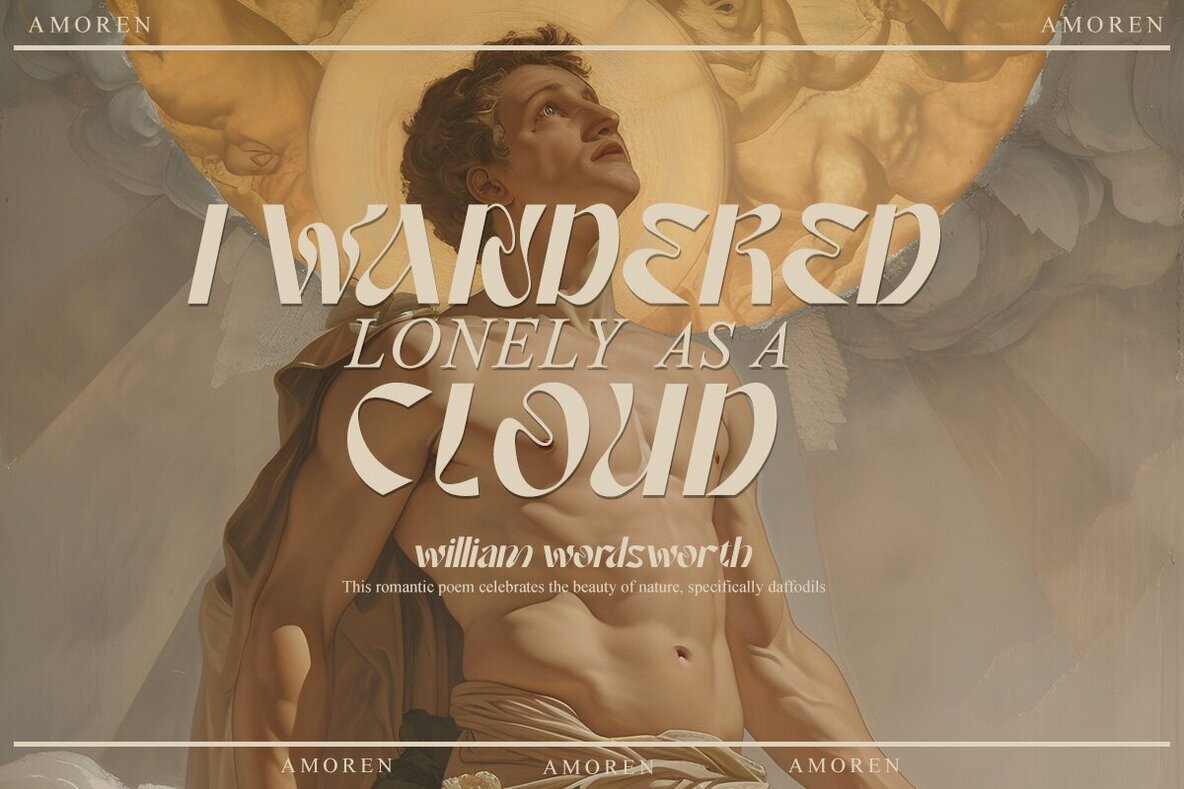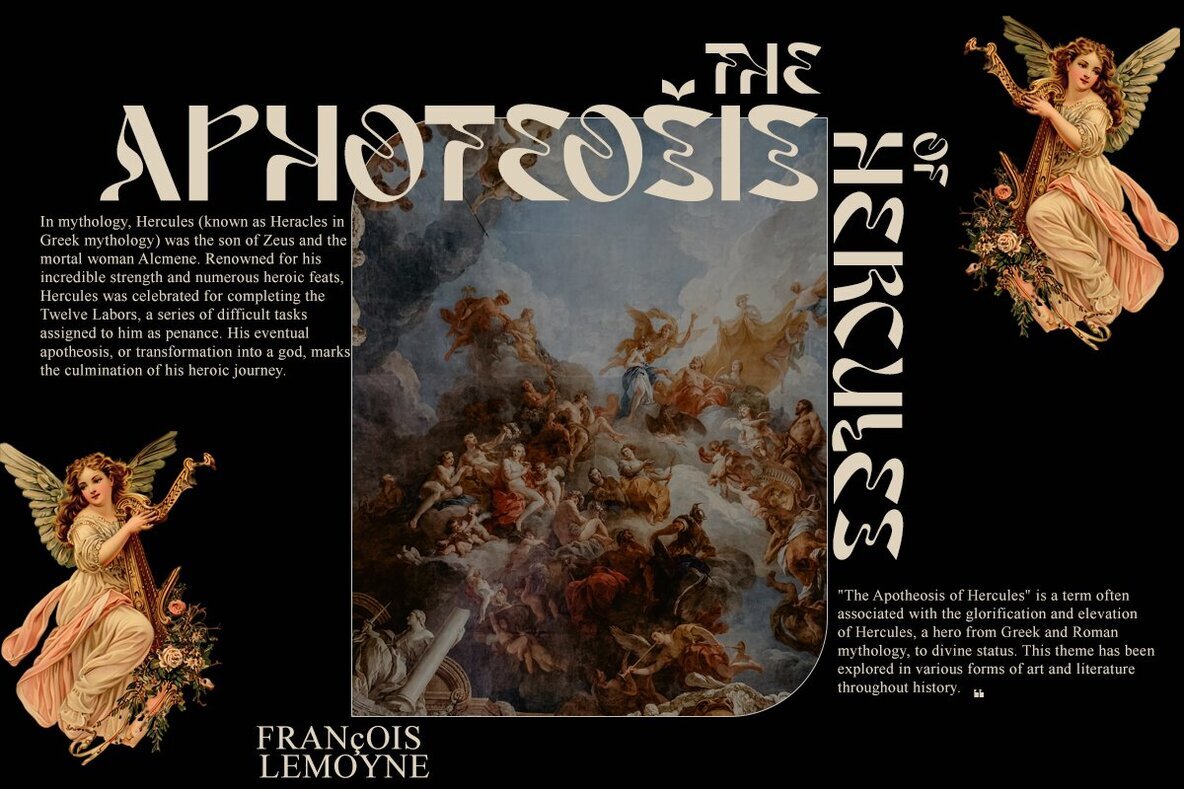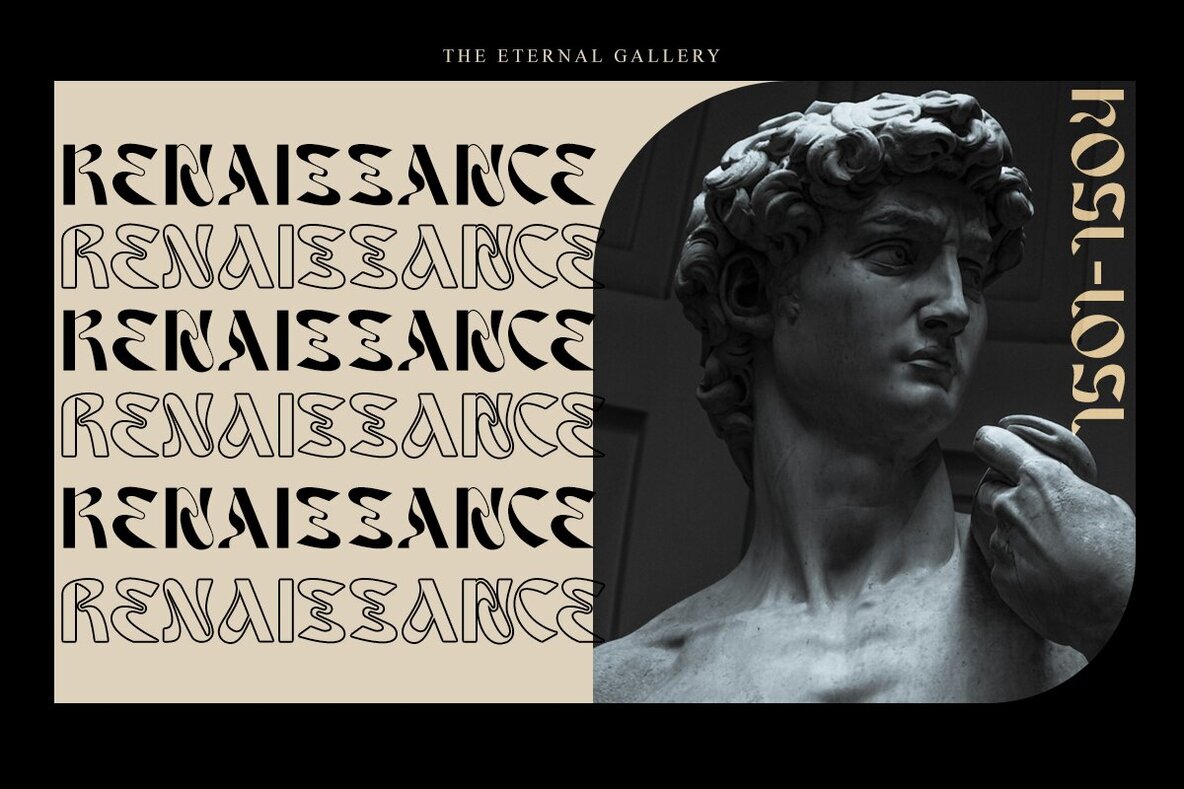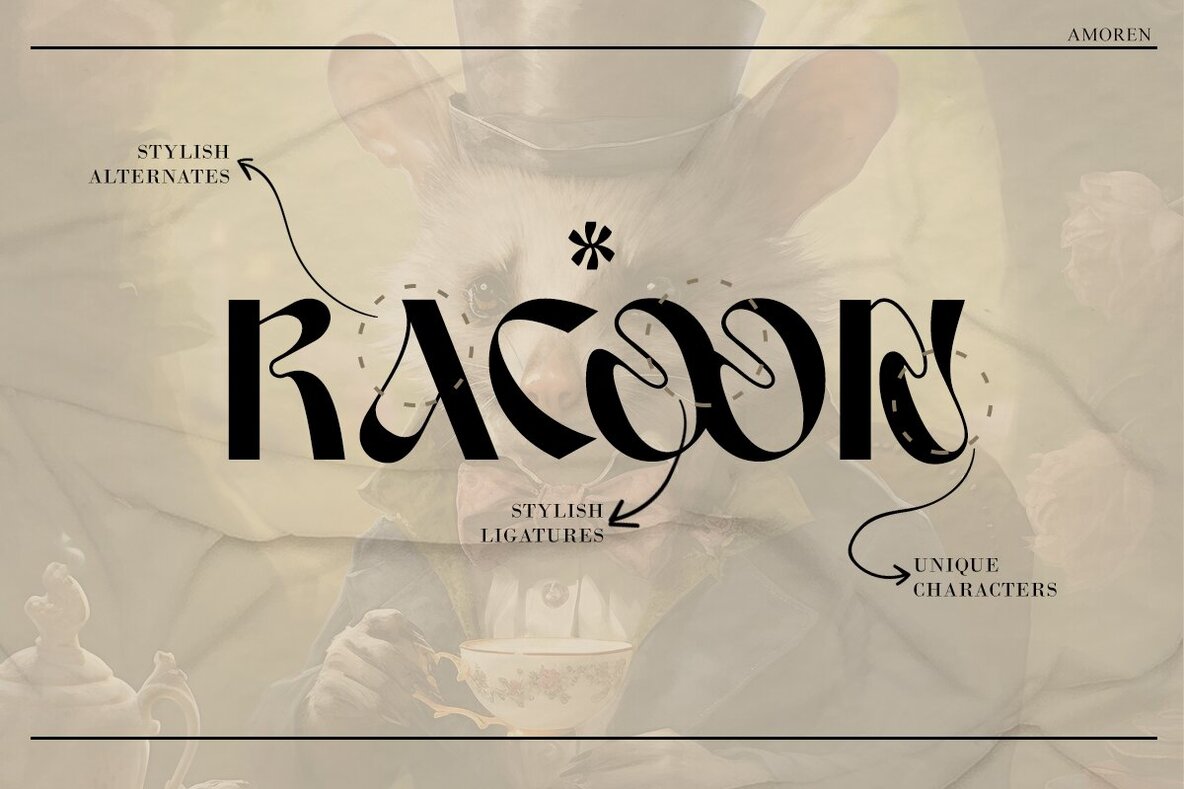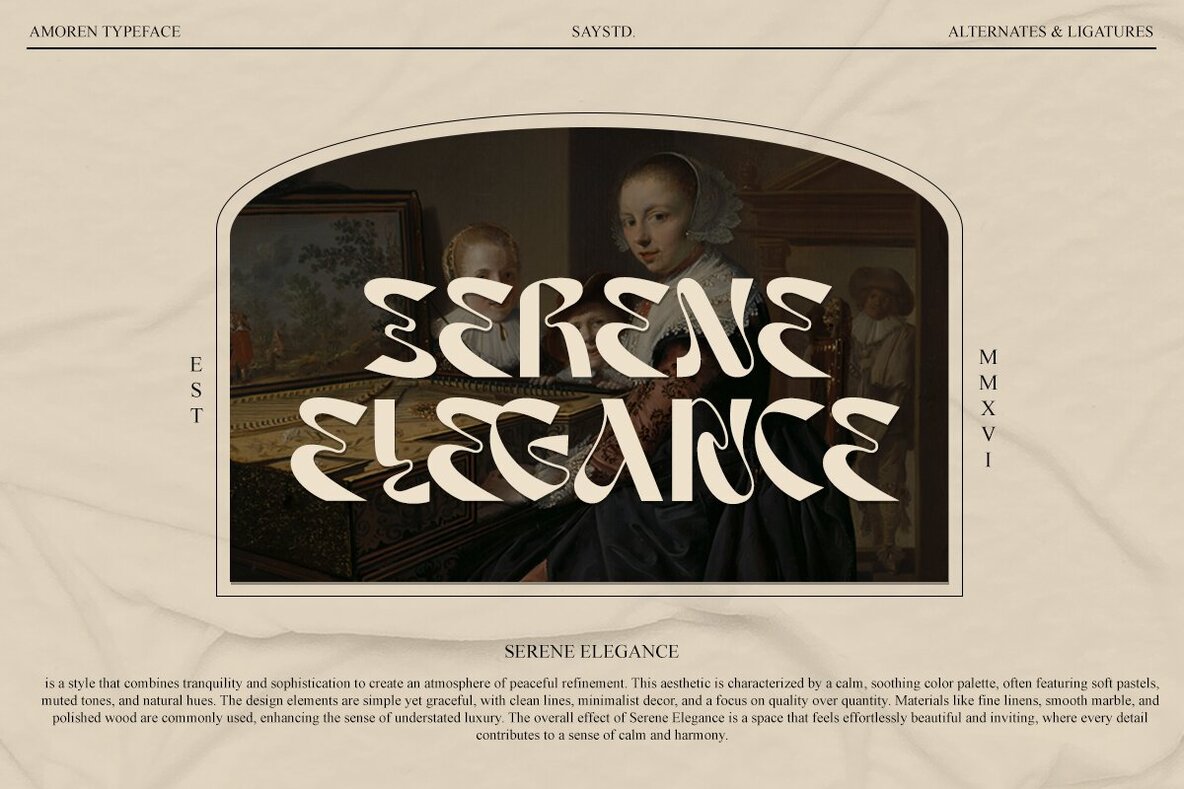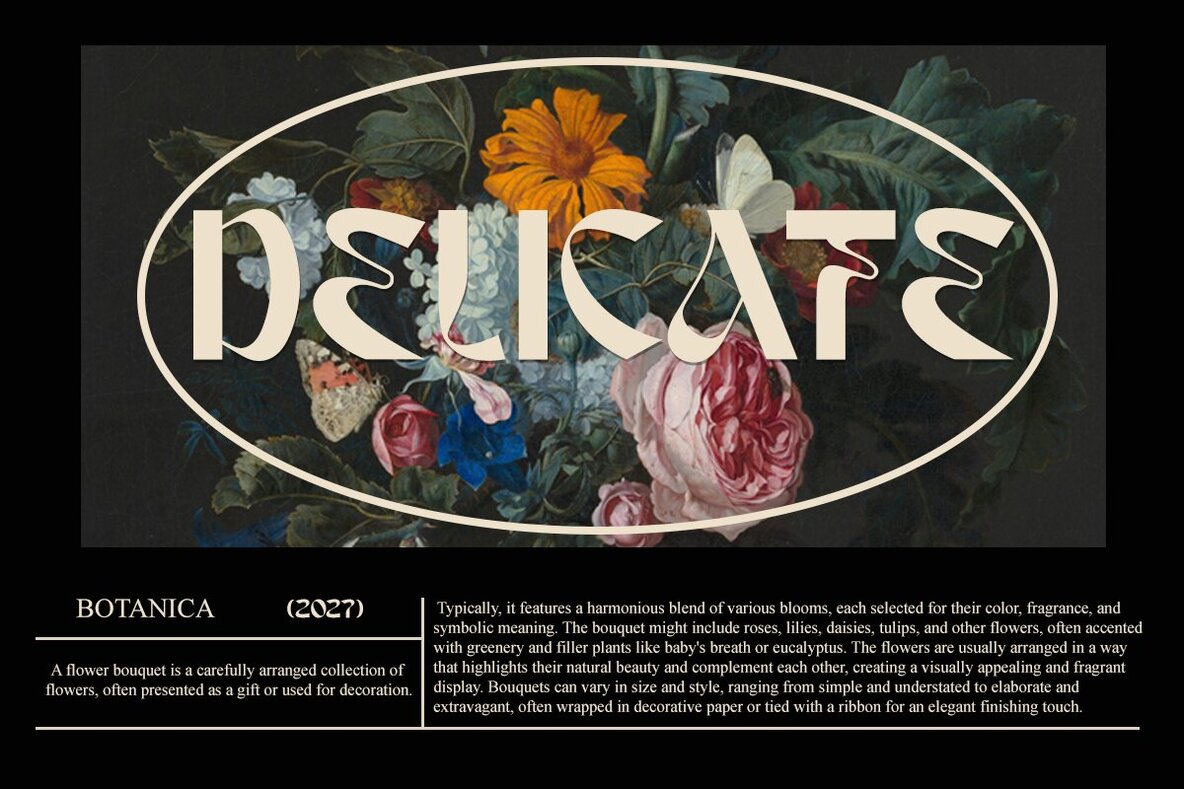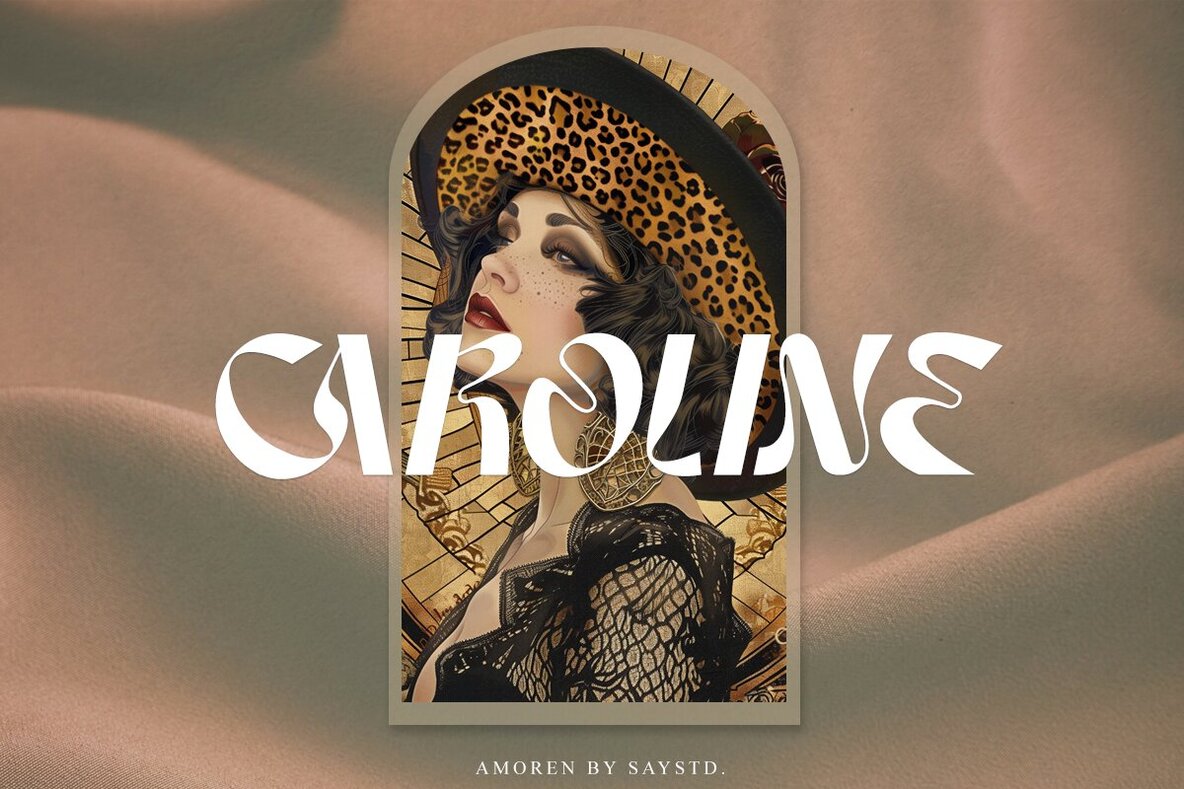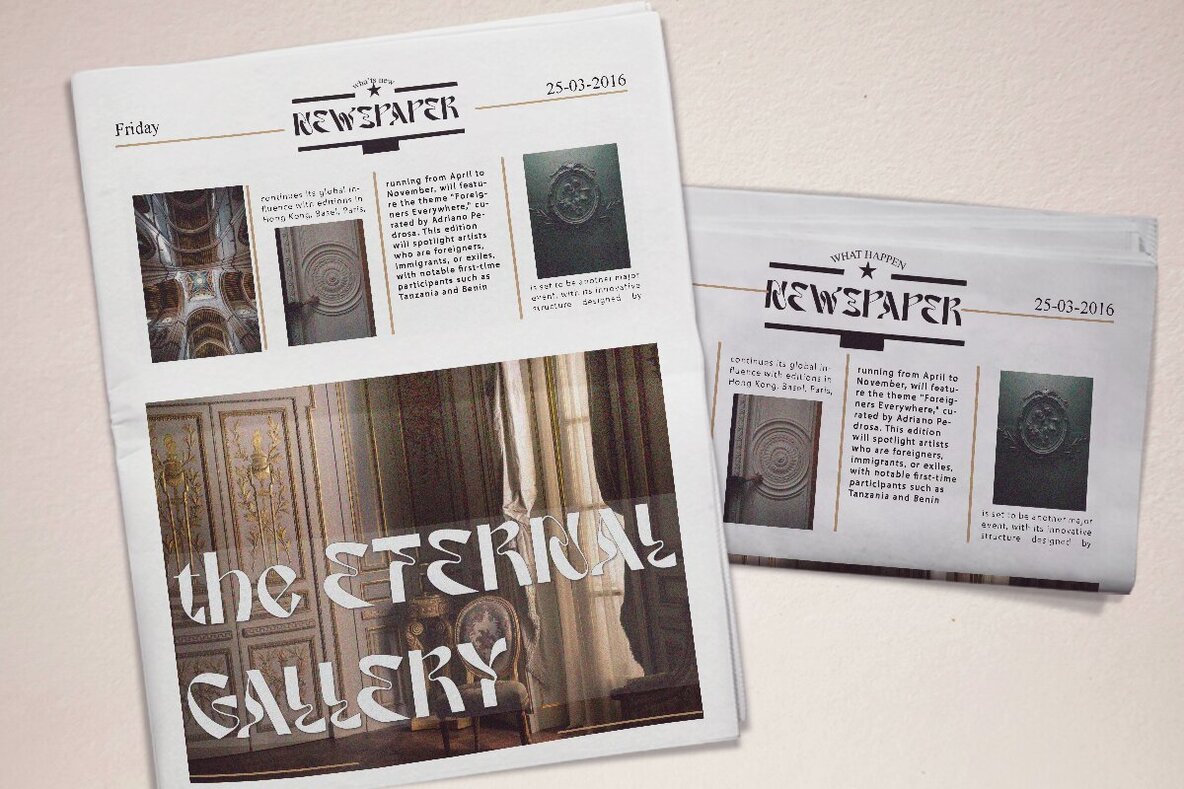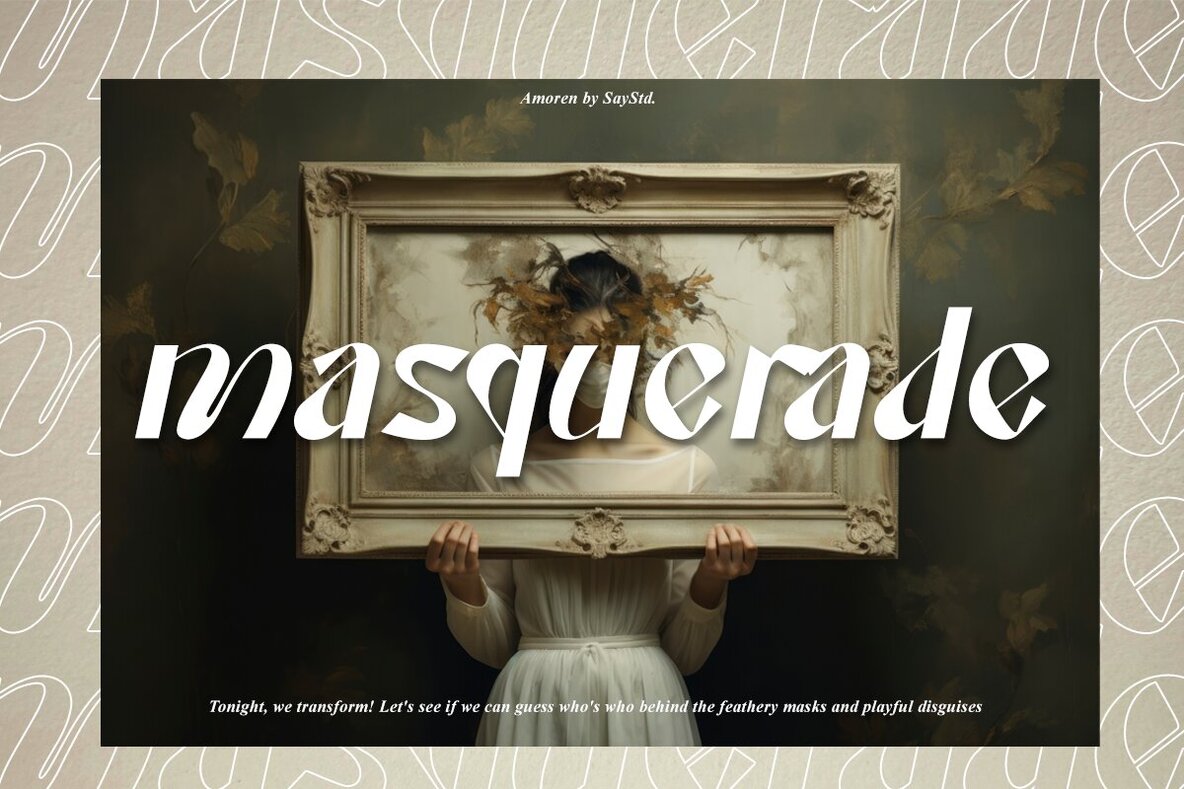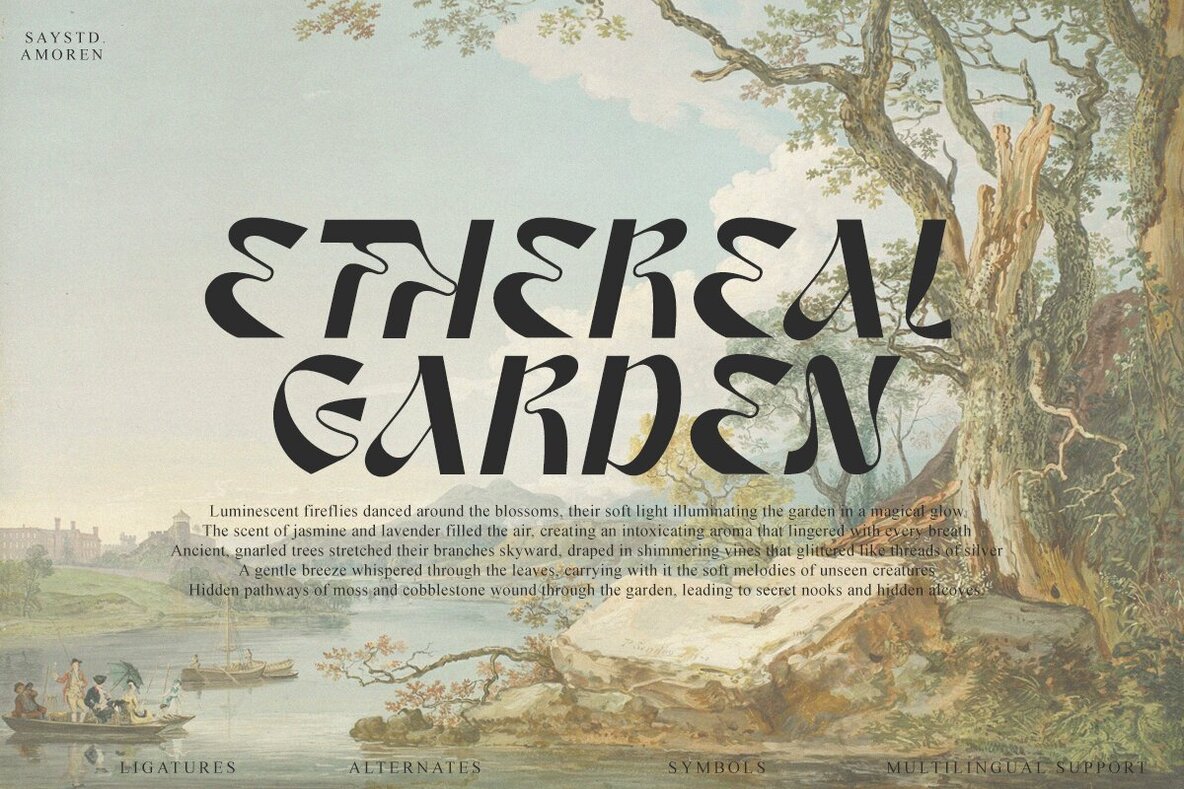
Amoren Font
Amoren is a variable display font with a psychedelic aesthetic and unique curves that create a visually appealing experience. Its fresh and fun design makes it ideal for use in apparel, book covers, titles, and more. Amoren features several alternate characters and ligatures, providing diverse styling options to enhance your projects.
This versatile font includes both regular and italic styles, ensuring flexibility in your designs. Additionally, Amoren offers multilingual support, making it suitable for international audiences. Transform your creative projects with Amoren's distinctive look and comprehensive feature set.